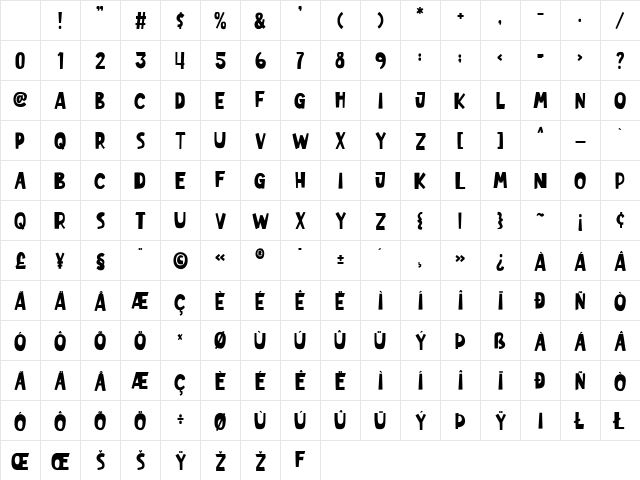
Complete Blacks Roobin Regular glyph index. Displaying only characters natively supported by Blacks Roobin Regular font.
Blacks Roobin is a composed and adaptable typeface that performs quietly and consistently across a wide range of design contexts.